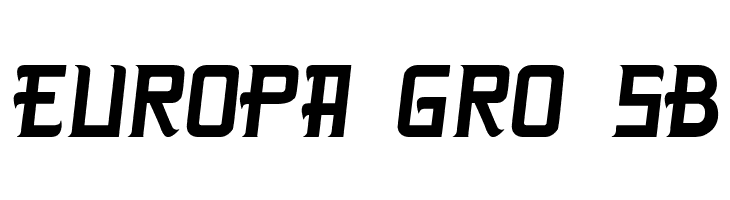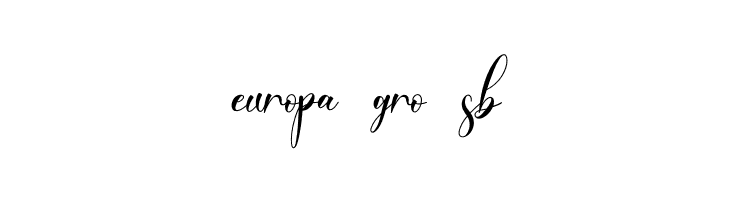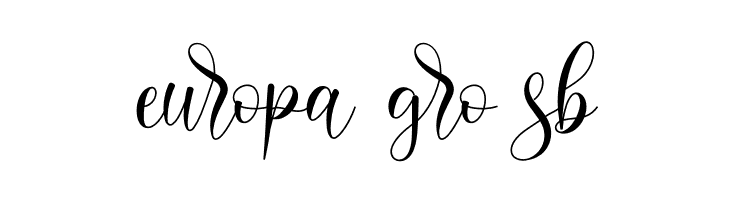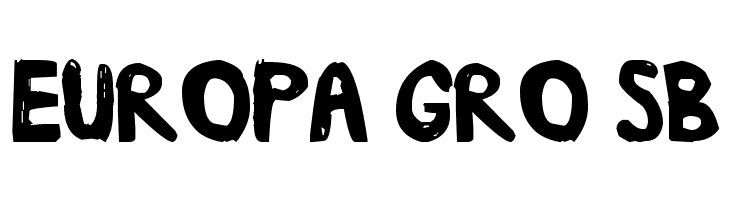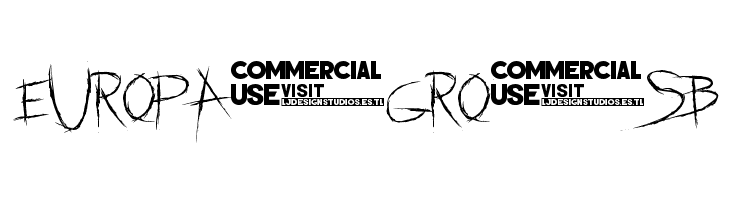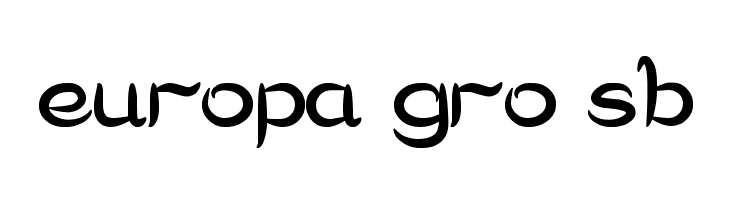
A casual, handwritten font with an organic and lively appearance.
A bold, decorative font with vintage, ornate detailing and shadow effects.
A bold, dripping effect font with a playful and creative style.
A playful, flowing script font with smooth, rounded curves.
A bold, impactful font with strong, uniform characters.
A decorative font with characters formed by small, curved strokes, offering a playful and artistic appearance.
A bold, cursive font with smooth, flowing lines and a strong presence.
A bold, expressive script font with fluid, interconnected strokes and a handwritten appearance.
A bold, cursive script font with a dynamic and fluid style.
A playful, bold handwritten font with a whimsical touch.
An elegant, decorative font with artistic curls and swirls.
A bold, expressive script font with flowing, cursive characters.
A bold, geometric display typeface with blocky, high-contrast letterforms.
A textured, hand-drawn font with a chalk-like appearance.
A graceful and elegant script font with flowing, cursive characters.
An elegant, italic script font with flowing, cursive characters.
A bold, cursive script font with dynamic, flowing strokes.
A hand-drawn, artistic font with elongated, irregular letterforms.
A bold, distressed font with a rugged, weathered appearance.
A bold, geometric font with a modern and clean aesthetic.
A casual, playful handwritten font with smooth, flowing lines.
A bold, 3D sketch-style font with a hand-drawn texture and strong contrast.
A bold, geometric font with futuristic circular cutouts.
Cartoonish animal illustrations form each character in a playful, decorative style.
A bold, geometric font with strong, angular lines and a futuristic style.
A playful, hand-drawn font with irregular strokes and a quirky style.
A bold, flowing script font with high contrast and elegant curves.
A bold, brushstroke-style font with a dynamic and textured appearance.
A playful, hand-drawn outline font with an irregular and artistic style.
A bold, rugged, and hand-drawn font with a playful, cartoonish style.
A bold, italicized font with a reggae-inspired, dynamic style.
A bold, italicized font with angular edges and a dynamic, modern style.
A dynamic and expressive handwritten font with fluid, flowing letterforms.
A bold, expressive handwritten font with dynamic strokes and playful elegance.